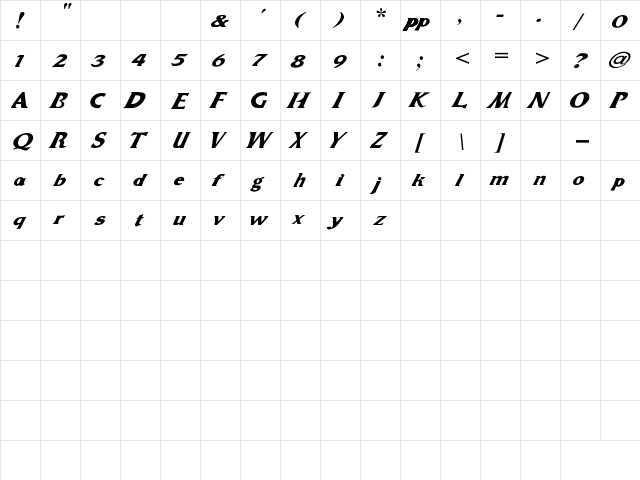
Dr.Peppers Dr.Peppers
| Foundry | High-Logic |
| Designer | High-Logic - Erwin Denissen 1999 |
Design Context for Dr.Peppers Typeface
Dr.Peppers offers clean, dependable letterforms without strong stylistic allegiance, making it a practical choice for designers who need flexibility.